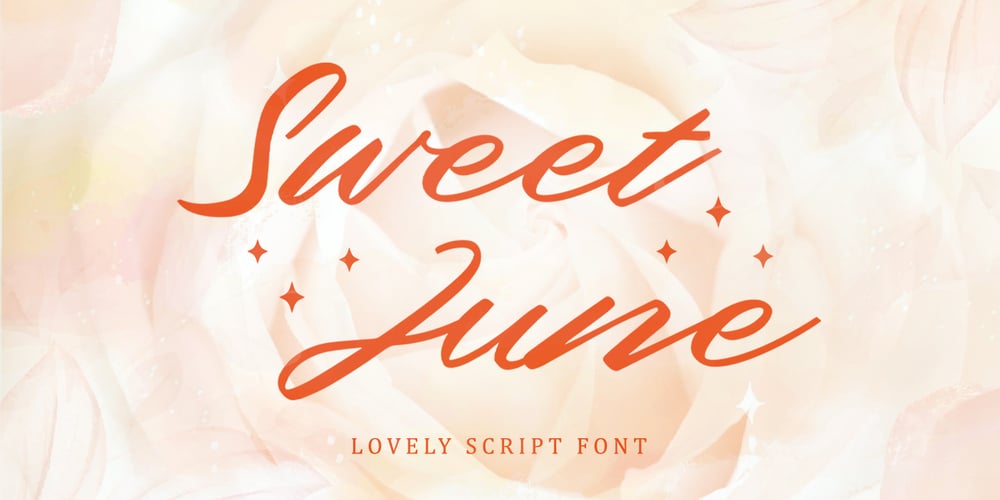
Sweet June Font Family was designed by Hilmius Akbar and published by Typefactory. Sweet June contains 1 styles and family package options. Sweet June is a lovely script font. It has a natural writing style with a great readability.It’s perfect for adding a natural touch to your luxurious designs.